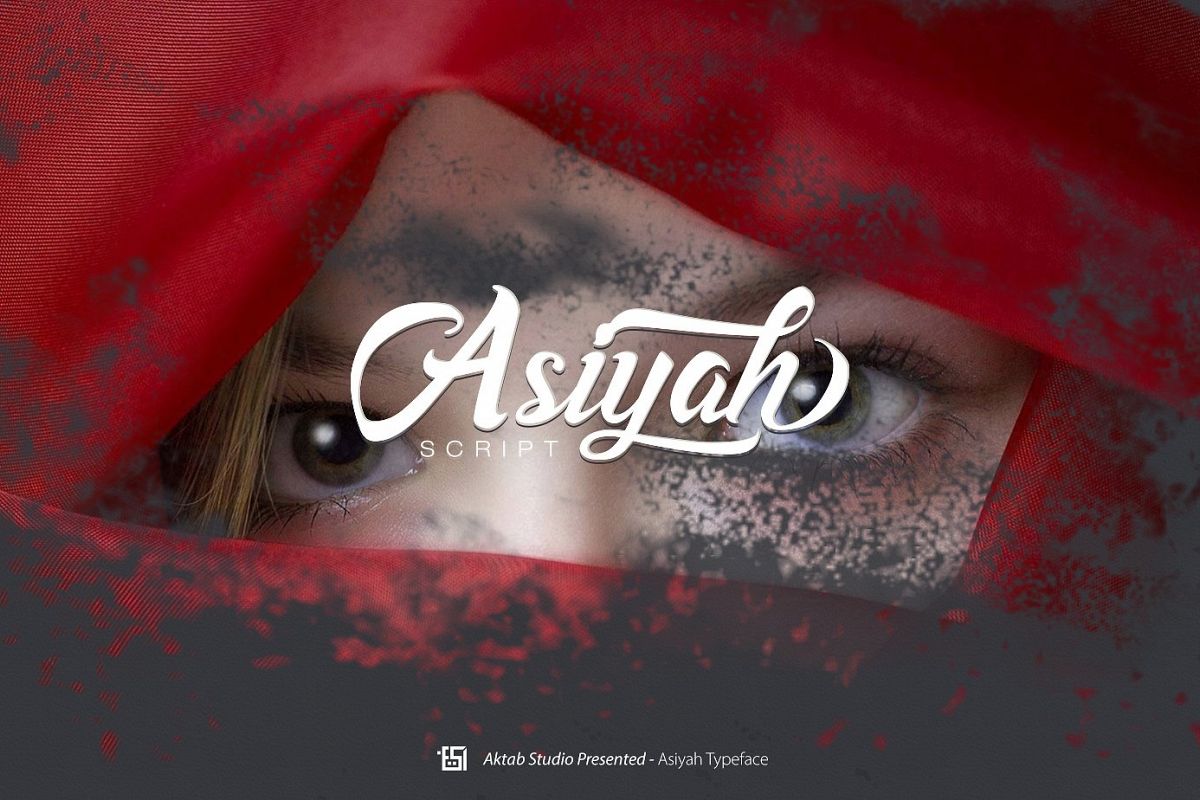
Asiyah Script Font
Hooraaayyy! Asiyah Script is launching!... I would be very happy if you'll like it ;) Asiyah is a handwritten font with a unique character. Full of open type features, is best used in an open type aware software. Most diacritics are included and the font can be used with most of the European languages.
There are more than 640+ glyphs in the font including Latin diacritics, discretionary ligatures, initial and terminal forms for all letters and ligatures, stylistic alternates,, etc